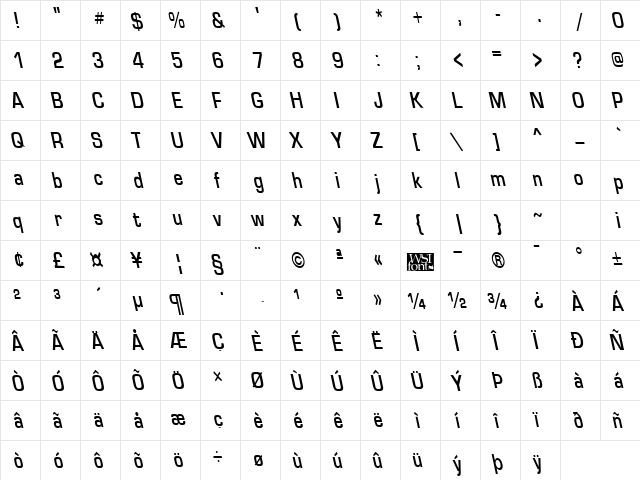
EuroseCondBackslant Regular
Design Context for EuroseCondBackslant Typeface
EuroseCondBackslant takes a measured approach to typography — its balanced proportions and neutral character make it a reliable workhorse for both digital and print work. The condensed width makes it efficient for tight spaces without sacrificing legibility.